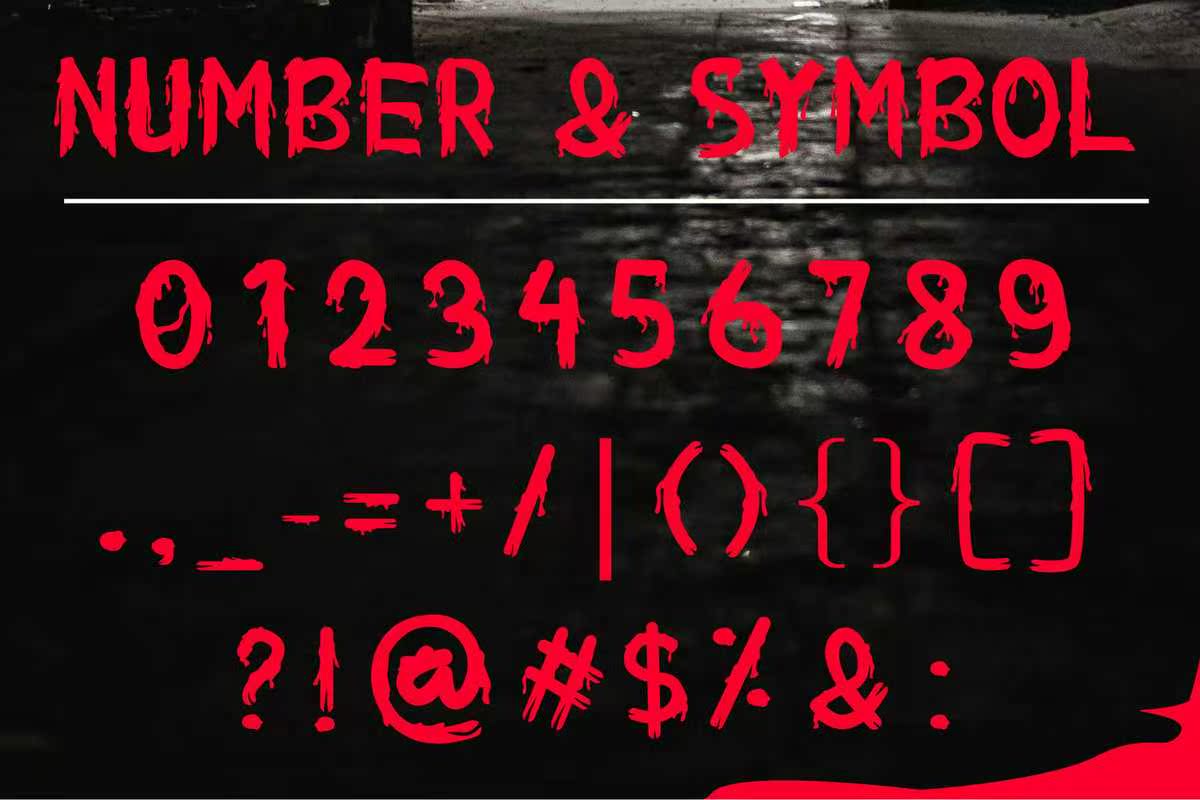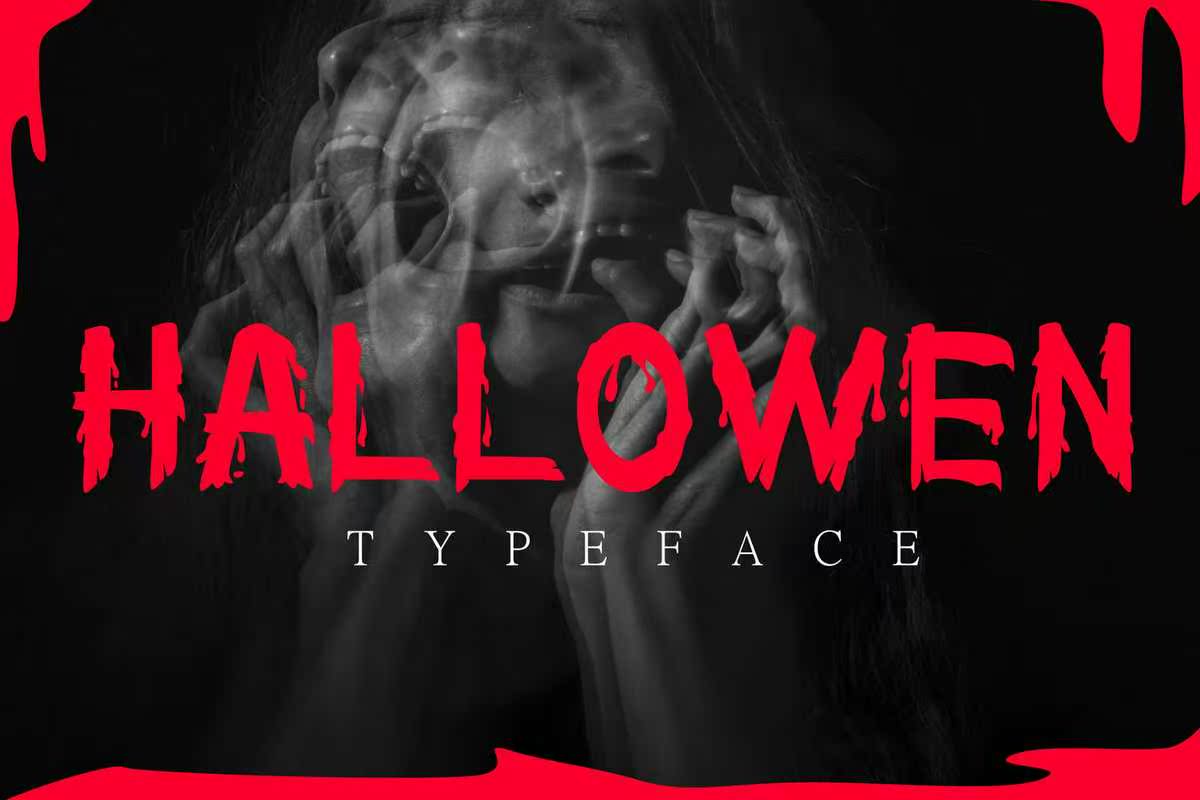
WalkTroughtHorrorFontintheScreepyStyle.SetofMulticoloredBrightLettersforScriptions和YourDesign.VectorillInstruction.IsolatedDonWhiteBackground.WalkTroughtHorrorFontheScreepyStyle.SetofMulticoloredBrightLettersforScriptions和YourDesign.VectorillInstruction.IsolatedDonWhiteBackground。